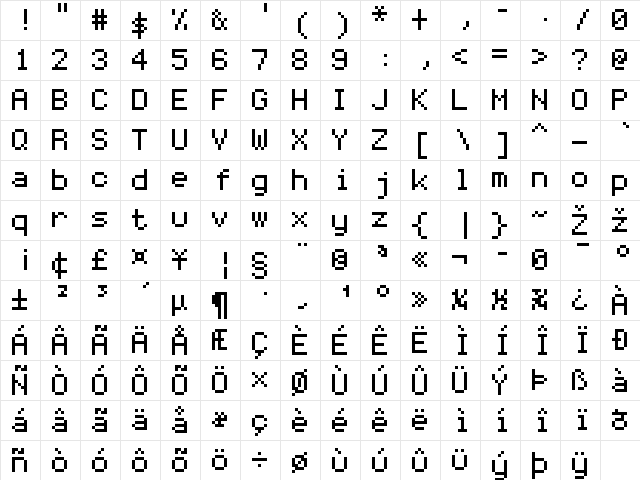
FFF Mono01 Regular
Design Context for FFF Mono01 Typeface
FFF Mono01 uses fixed-width spacing throughout, giving it the structured, systematic character associated with coding environments and technical documentation.
A natural fit for code editors, technical documentation, developer-focused branding, and terminal-inspired UI.
Pro Tip: Pair FFF Mono01 with a proportional sans for UI contexts where code-style labels and regular body copy need to coexist.